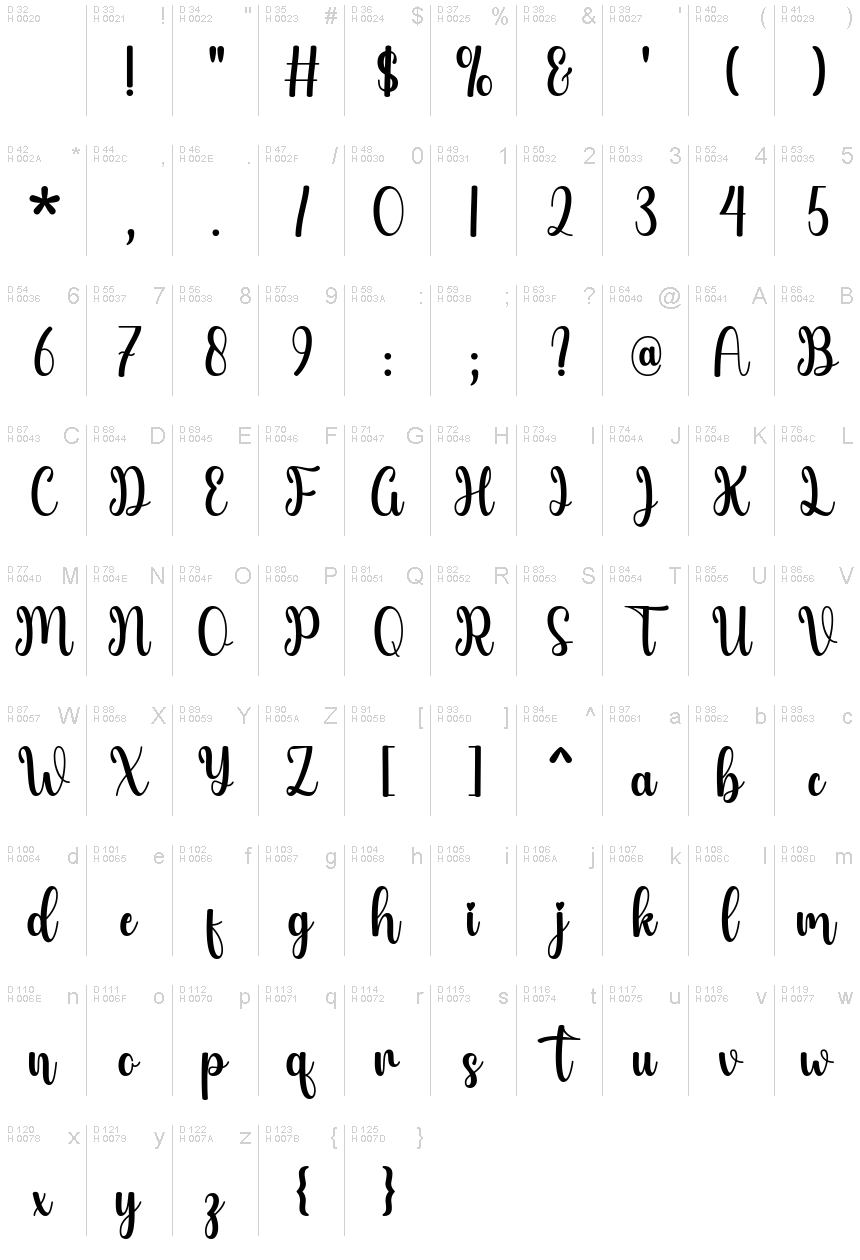
Hayda
Hayda, a creation by Hardiboy Design, exudes a personal touch with its handwritten style that seems to dance across the page. The flowing curves and relaxed demeanor of the script suggest a casual elegance, making it ideal for invitations, greeting cards, and branding where a human touch is desired. Its gentle charm lends itself beautifully to creative projects that require a hint of sophistication without losing the warmth of a personal note.
In design contexts that call for something between formal and playful, Hayda shines as an approachable yet stylish choice. Whether it's adding character to book covers or crafting memorable logos, this font has the versatility to make any message feel inviting and crafted with care.